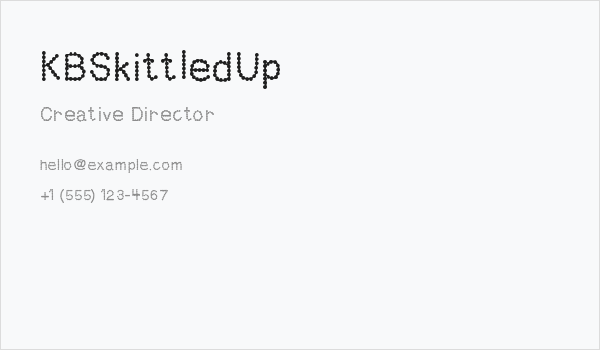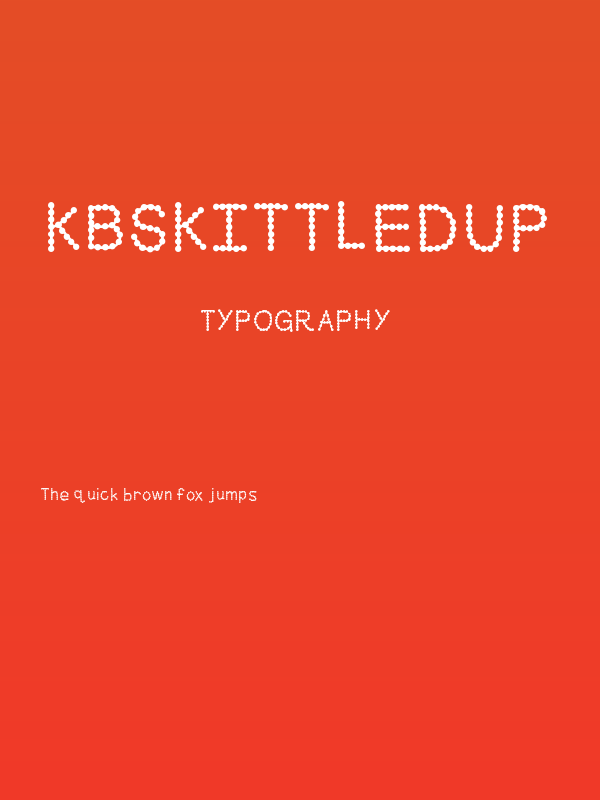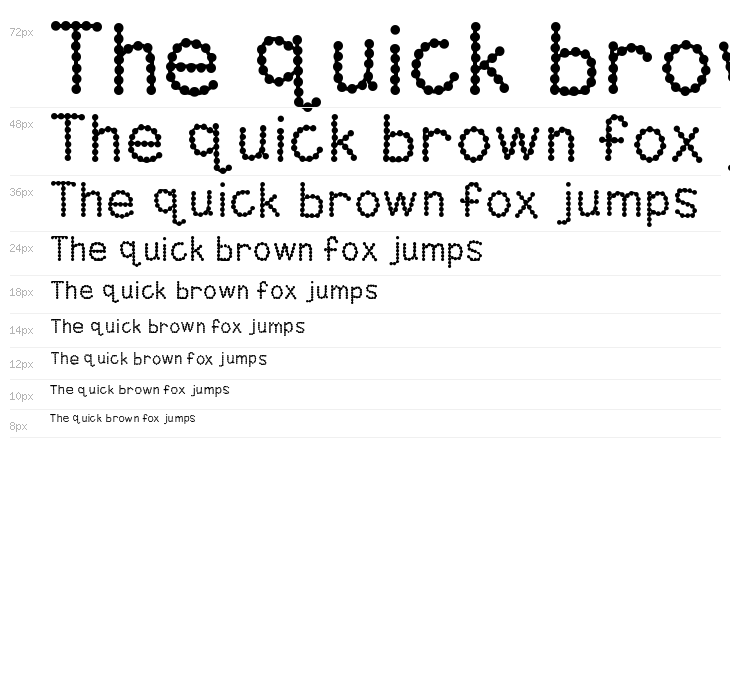
KBSkittledUp Font
KBSkittledUp Description
This playful and unique font is composed entirely of small, evenly spaced dots that form each character. The design gives a whimsical and lighthearted feel, making it ideal for creative and informal projects. The uniform dot pattern creates a consistent texture across all letters and symbols, providing a cohesive look. The font maintains readability despite its unconventional style, with clear distinctions between each character. Its dotted structure adds a tactile quality, reminiscent of LED displays or digital signage, while still maintaining a hand-crafted charm.
| Overall Style | Playful, Creative |